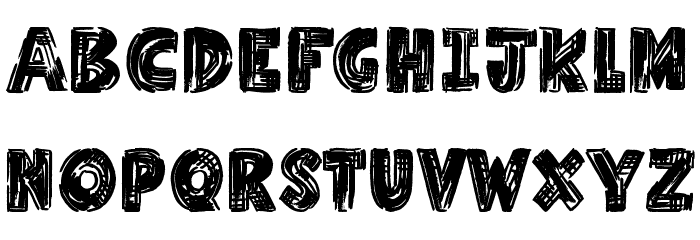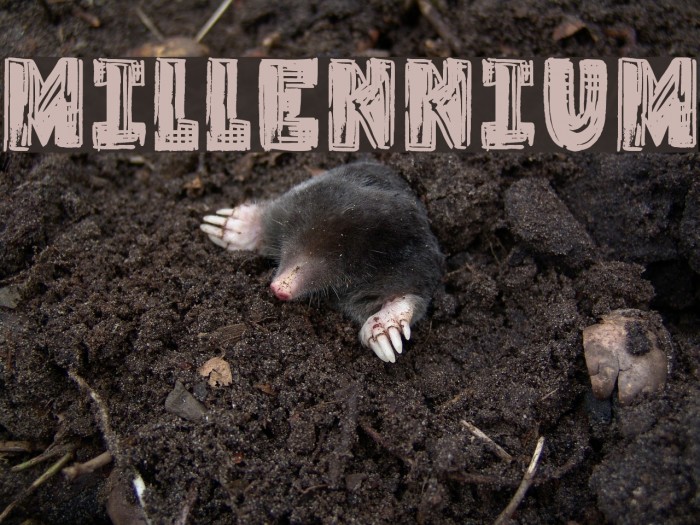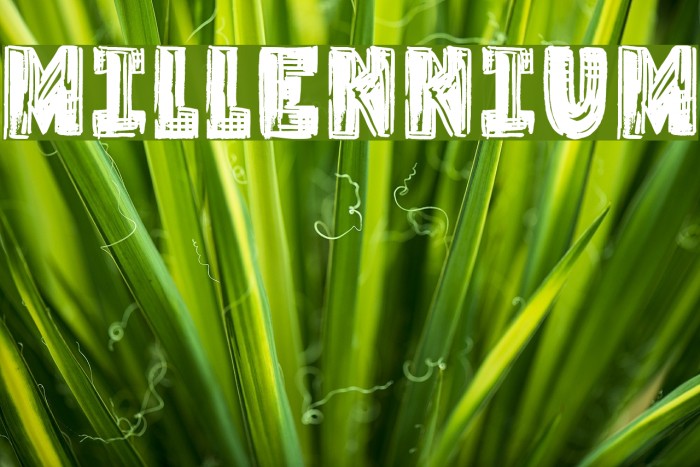
Millennium Font
This font features a bold and dynamic style with a hand-drawn appearance. The characters are filled with intricate line patterns and textures, giving them a sketch-like quality. The uppercase letters are prominent and expressive, making a strong visual impact. The font's artistic flair is evident in its irregular strokes and playful design, which adds a sense of movement and energy. Its unique style makes it suitable for creative projects that require a distinctive and eye-catching typeface.
A bold, hand-drawn font with intricate line patterns and a sketch-like appearance.